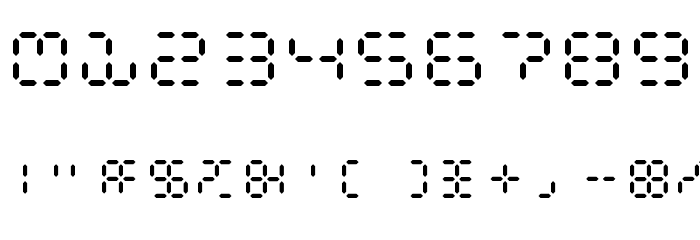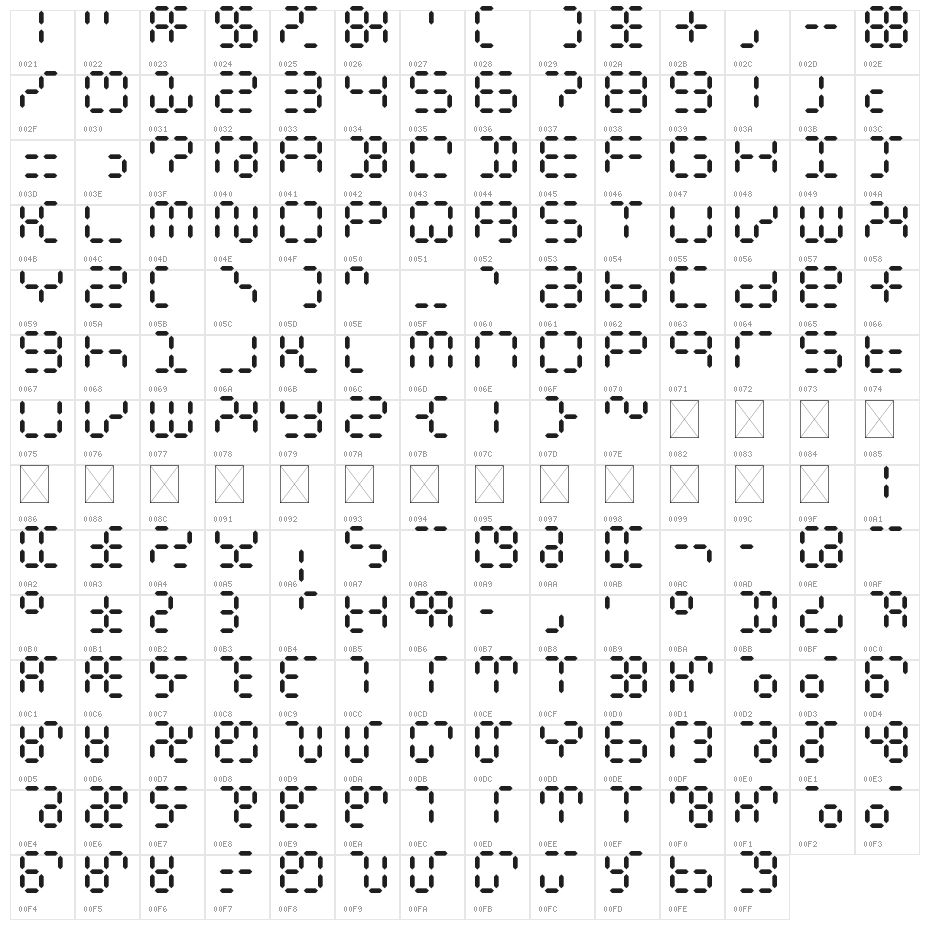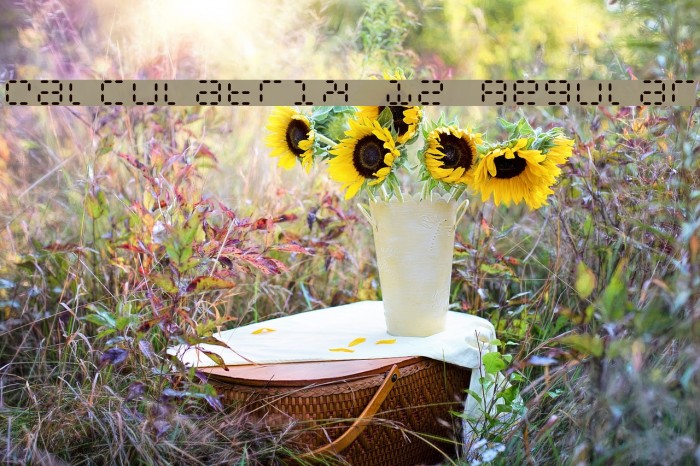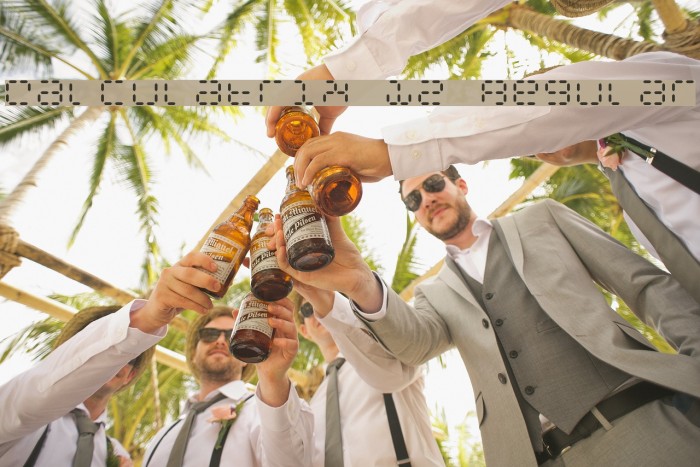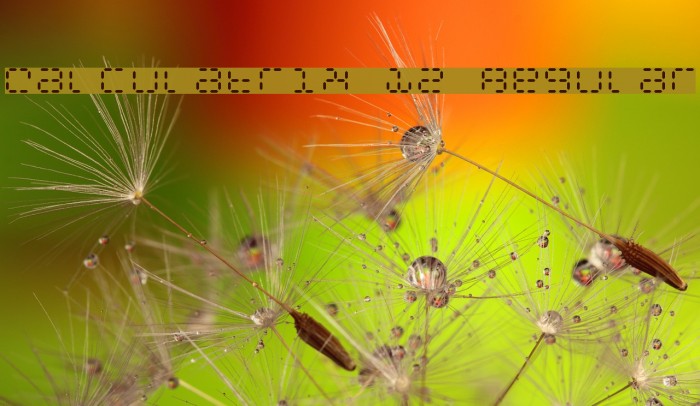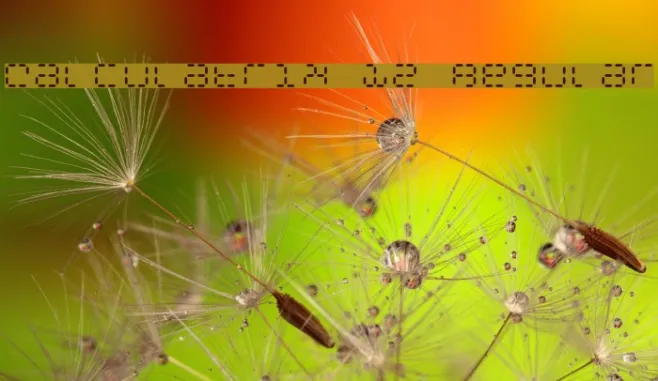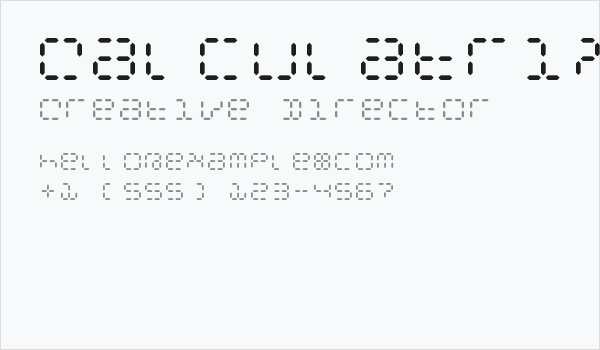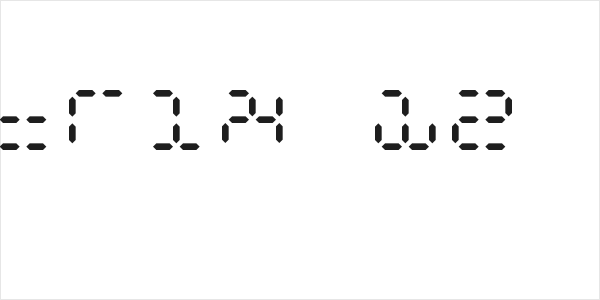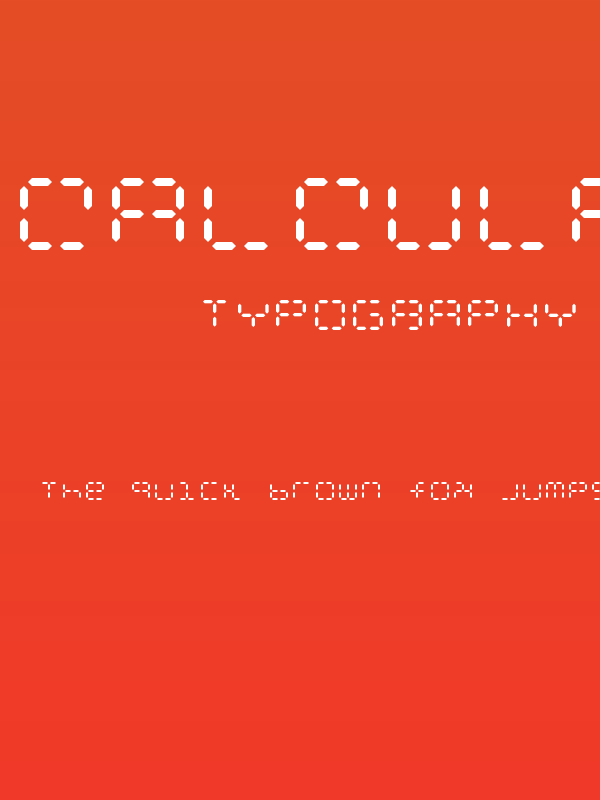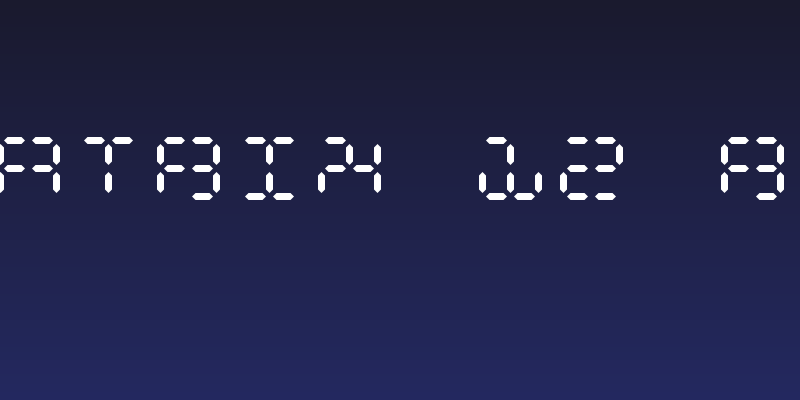
Calculatrix 12 Regular Font
Calculatrix 12 Regular Description
This font features a unique, segmented design reminiscent of digital displays or dot matrix printers. Each character is composed of distinct, rounded segments that give it a futuristic and technological appearance. The uppercase and lowercase letters maintain a consistent style, with the lowercase being slightly smaller in size. Numbers and special characters follow the same segmented pattern, ensuring uniformity across all glyphs. The font's geometric structure and clear legibility make it suitable for digital-themed projects or contexts where a modern, tech-savvy look is desired.
| Use Case | Logos, Headlines, Digital displays |
| Proposed Projects | Ideal for digital displays, tech branding, futuristic designs, and educational tools. |